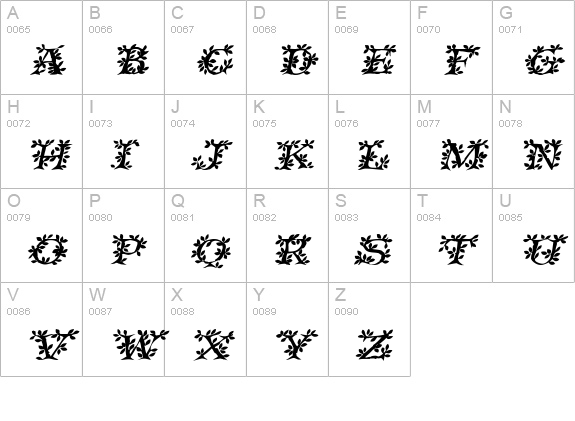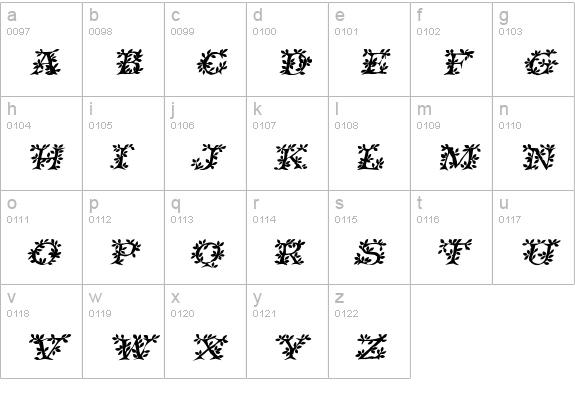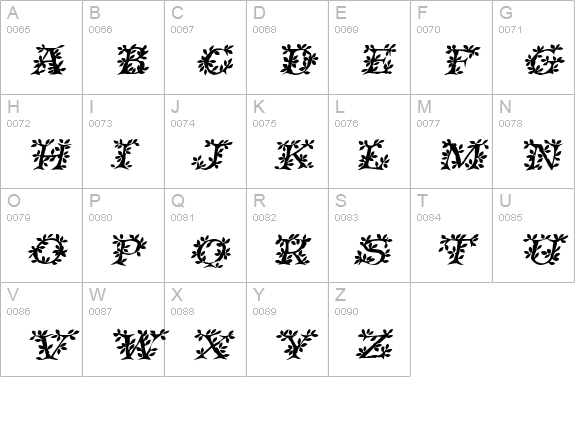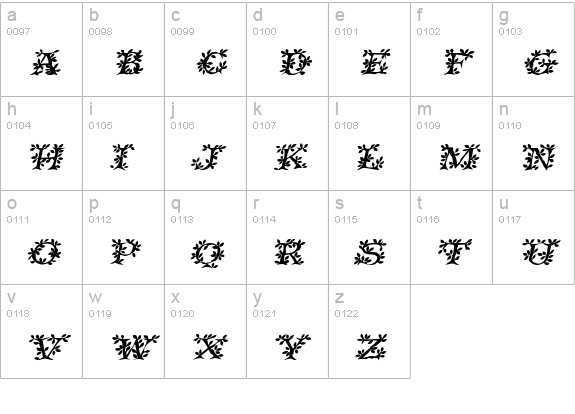
IvyDisplayCaps Bold Italic Font Details
IvyDisplayCaps Bold Italic is a strong, high-contrast, italic variant in the IvyDisplayCaps typeface family \xE2\x80\x94 well suited to headlines, attention-grabbing titles, and strong calls-to-action.
IvyDisplayCaps Bold Italic font is a captivating and dynamic typeface that exudes a sense of confidence and elegance. This font is perfect for adding a touch of sophistication to any design project, whether it be for branding, advertising, or editorial purposes. With its bold and italicized style, IvyDisplayCaps Bold Italic font commands attention and effortlessly stands out from the crowd. Its unique letterforms are meticulously crafted, combining sharp angles with graceful curves, resulting in a harmonious blend of strength and grace. This font is not only visually appealing but also highly versatile. Its bold and italicized characters lend themselves well to headlines, titles, and emphasis, creating a strong visual hierarchy in your designs. Additionally, its legibility ensures that your message is delivered with clarity and impact. One of the best features of IvyDisplayCaps Bold Italic font is that it is freely available to download at FontsMarket.com. This means that you can easily access and utilize this stunning font without any hassle or cost. Whether you are a professional designer or a hobbyist, having access to high-quality fonts like IvyDisplayCaps Bold Italic font can greatly enhance the visual appeal of your projects. So, if you are looking for a bold and italicized font that exudes elegance and is freely available to download, look no further than IvyDisplayCaps Bold Italic font. Transform your designs into works of art with this captivating typeface and make a lasting impression on your audience.